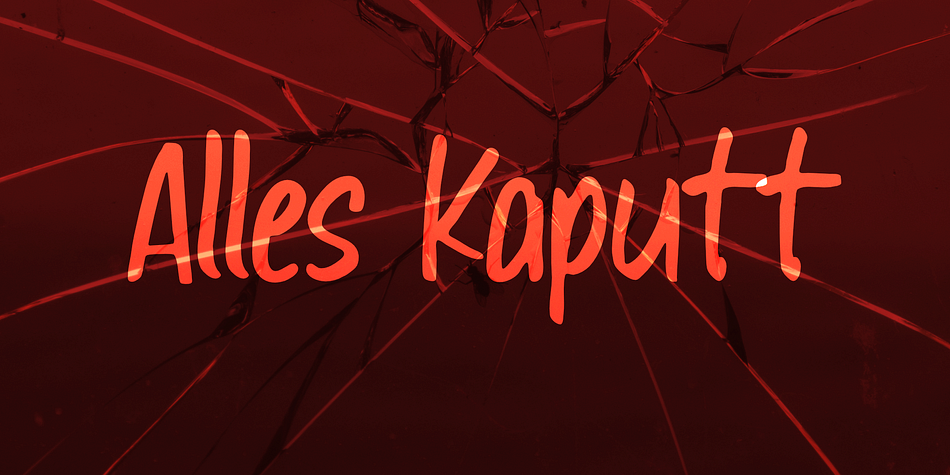
Alles Kaputt
Alles Kaputt is a hand drawn font family. This typeface has two styles and was published by Kitchen Table Type Foundry.
Alles Kaputt means ‘everything’s broken’ in German. I always wonder why my stuff breaks so easily, especially my mobile phones (I have had 7 in the last two years). Maybe I am careless, but I believe that there is a more or less scientific explanation that chaos and destruction are far easier than harmony and creation. I am no scientist, so don’t take my word for it!
Alles Kaputt is a nice script font. I made it with a felt tip pen I borrowed from the kids.
Use it for texts on product packaging, book covers and websites. Or, whatever you fancy!